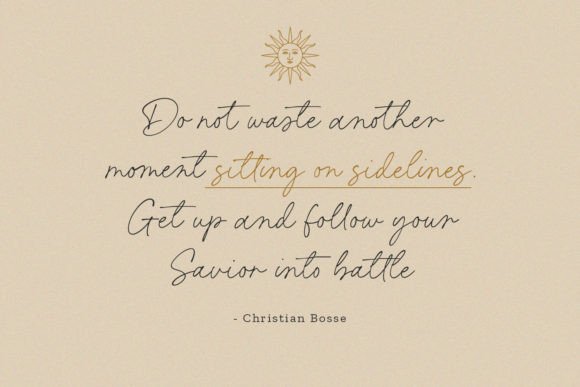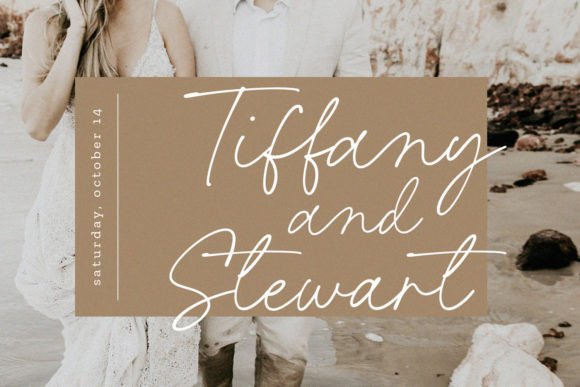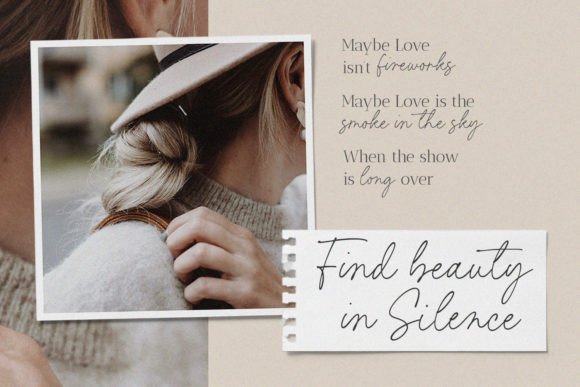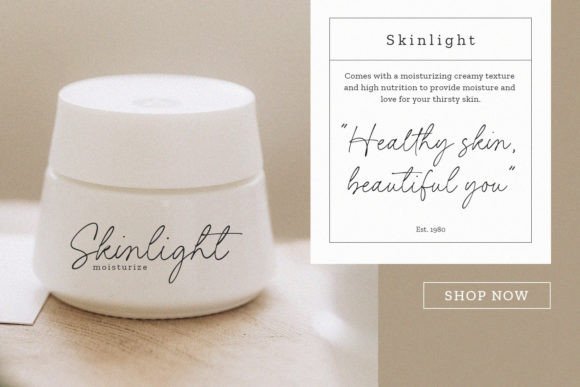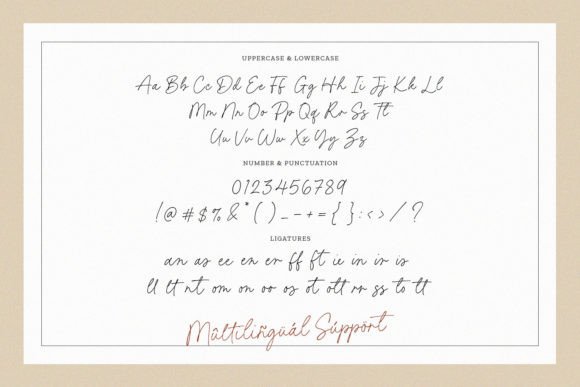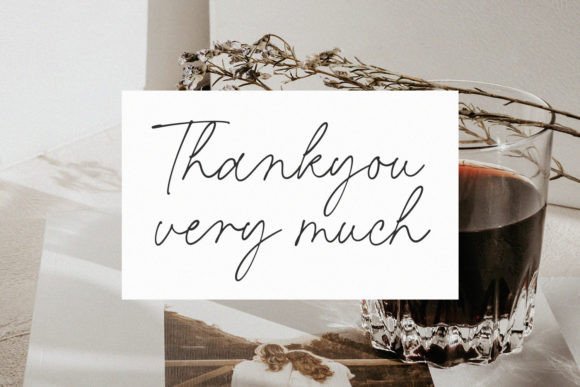
Requista Font
About Requista Font
Requista is an elegant handwritten font created with care. It adds a warm, personal touch to your designs. Its flowing strokes make your text feel natural and inviting.
Designed for Versatility
This font fits many projects. You can use it for product packaging, social media posts, or magazines. Requista brings style and charm to your work without losing clarity.
Perfect for Branding and Invitations
Requista works well on branding materials and wedding invitations. Its clean and graceful look helps your message stand out clearly.
Ideal for Social Media and Packaging
Use Requista to give your social media graphics a handmade feel. It also adds a unique style to product packaging, making your brand more memorable.
Easy to Use in Many Formats
This font looks great in both print and digital work. Its smooth curves and balanced style suit modern and classic designs alike.
Requista is a flexible and stylish handwritten font. It suits branding, weddings, packaging, and social media projects. Add Requista to your design toolkit to give your work a beautiful, personal touch.